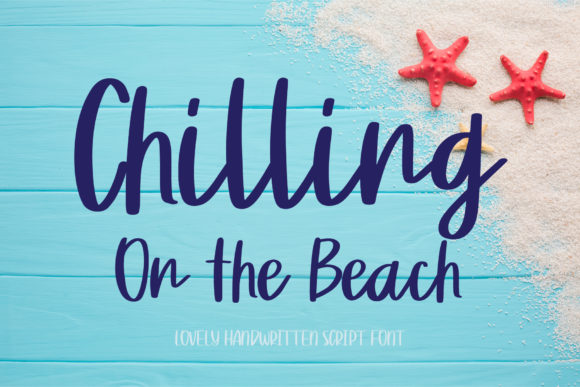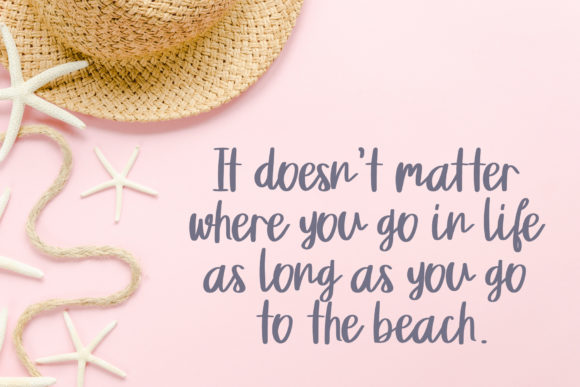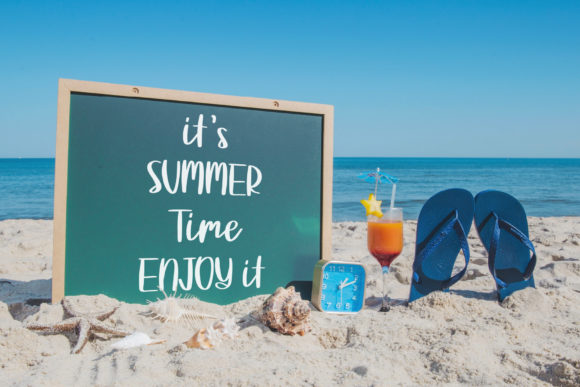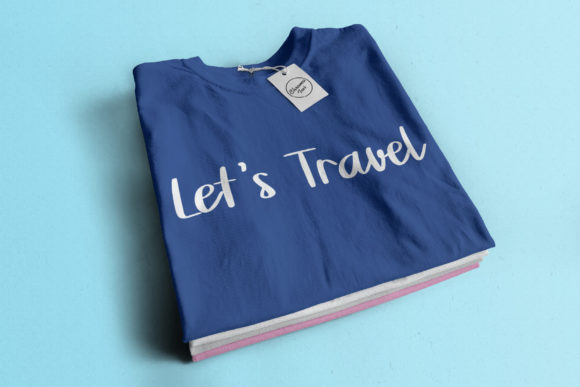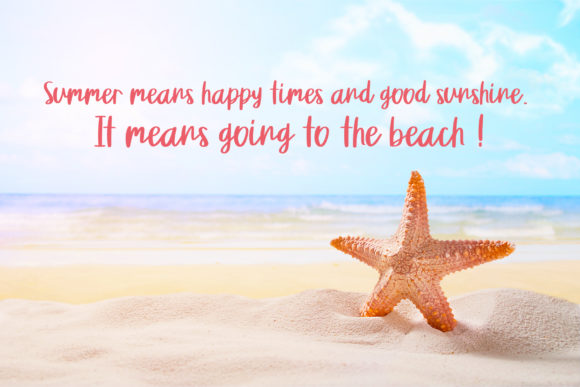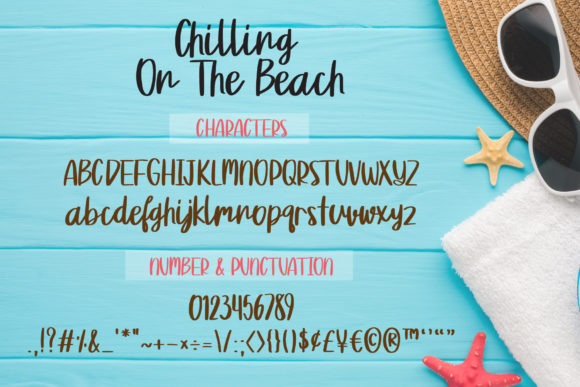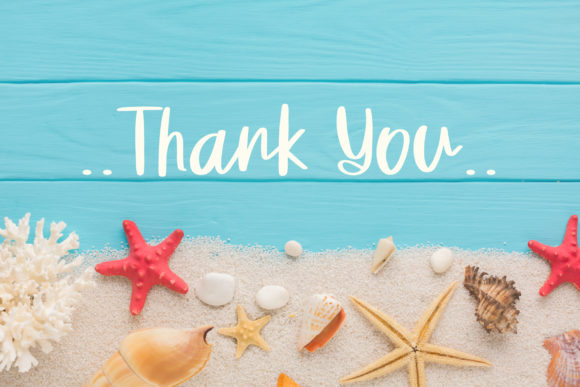
Chilling on the Beach Font
About Chilling on the Beach Font
Chilling On The Beach is a sweet and modern handwritten font. Fall in love with its incredibly versatile style and use it to create spectacular designs!